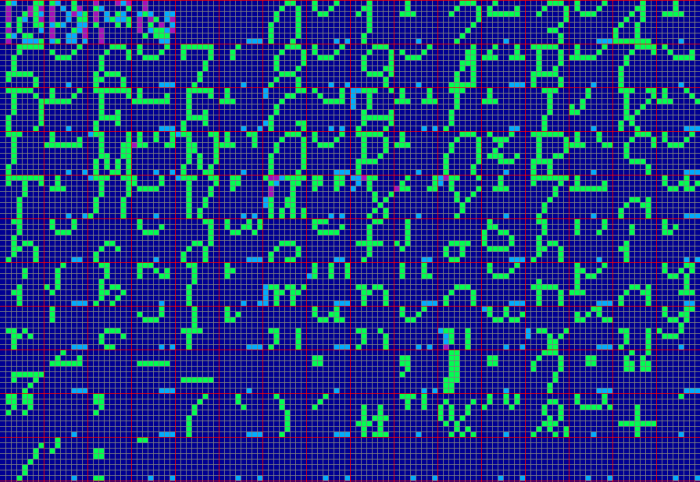
the complete tile map
the "H" and "X" characters, as encoded in the tile map
the "W" character, as encoded in the tile map
Heh, Phantasy Star IV does the same thing with the descenders in its larger (dialogue text) font. Luckily it's fixed-width, so it's not as much of a pain.